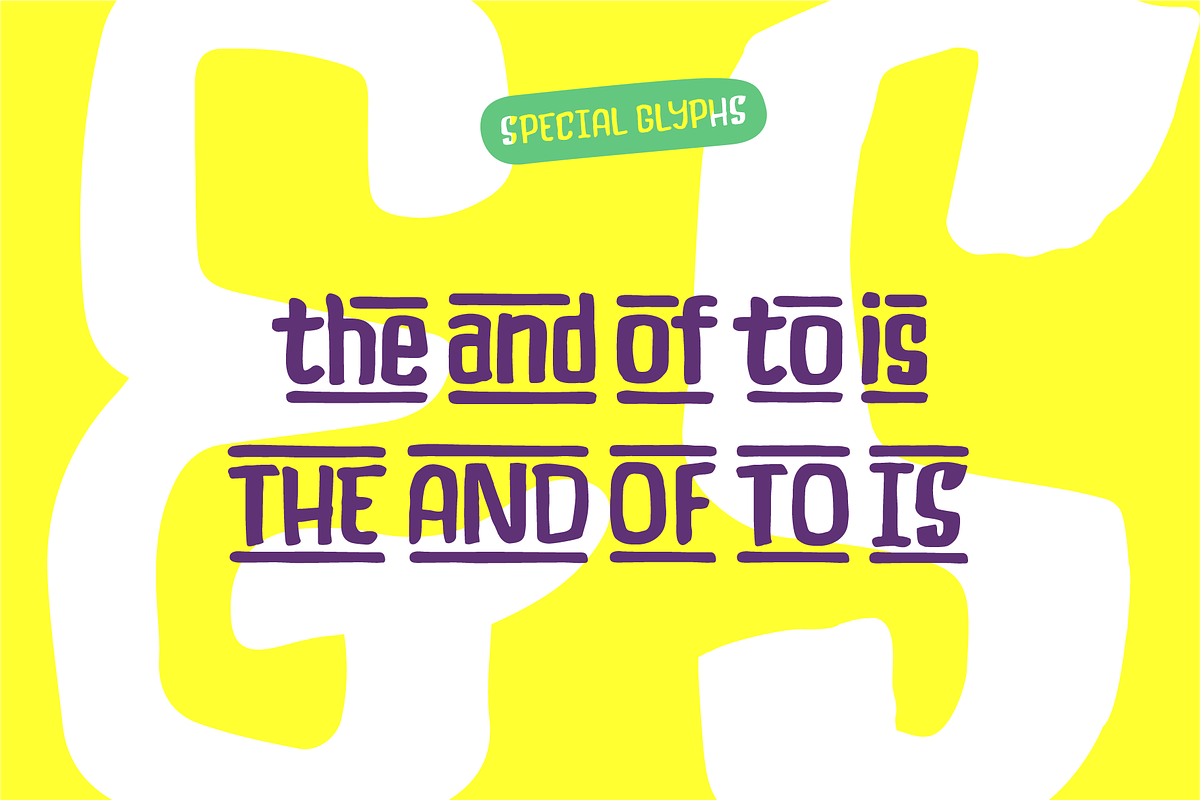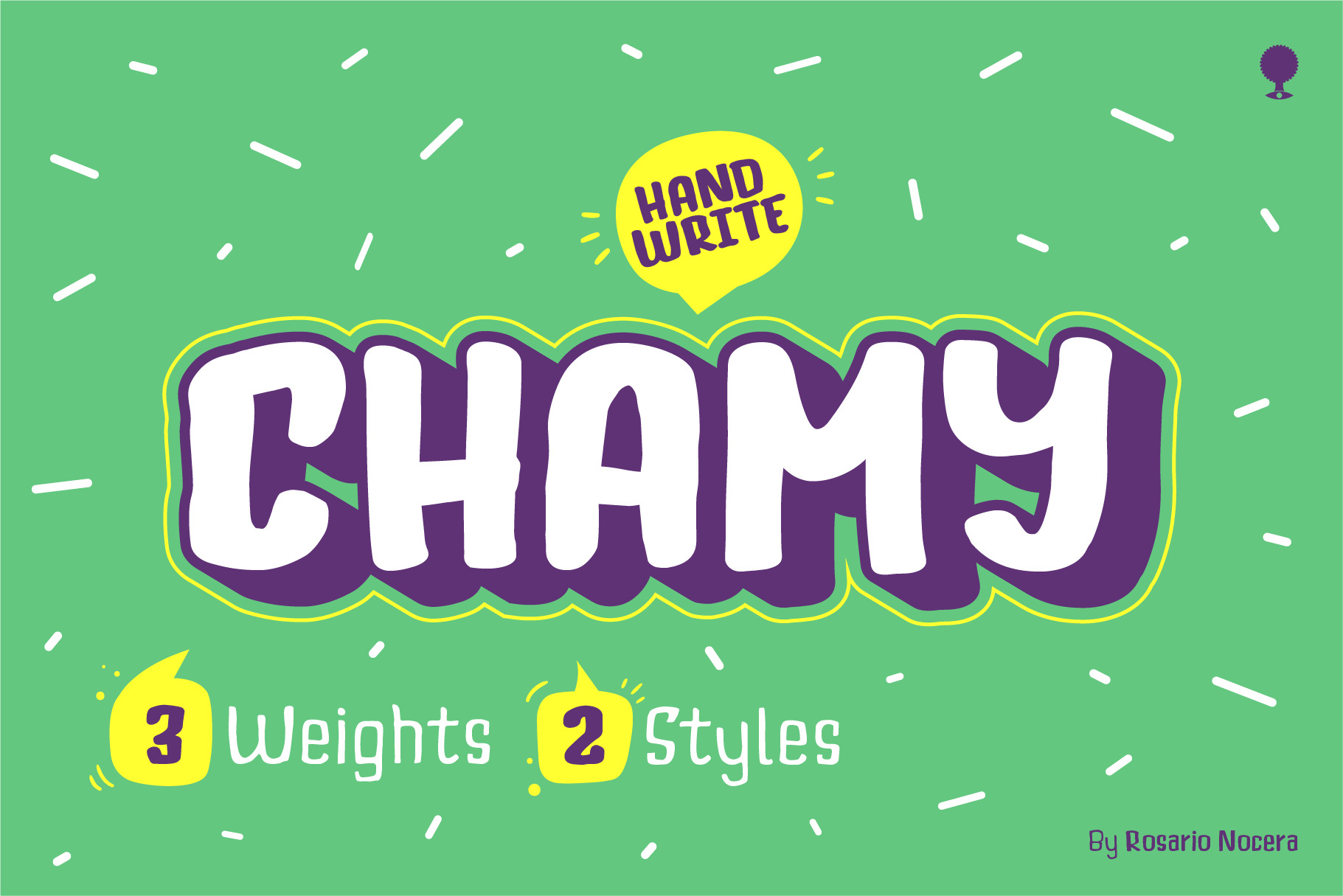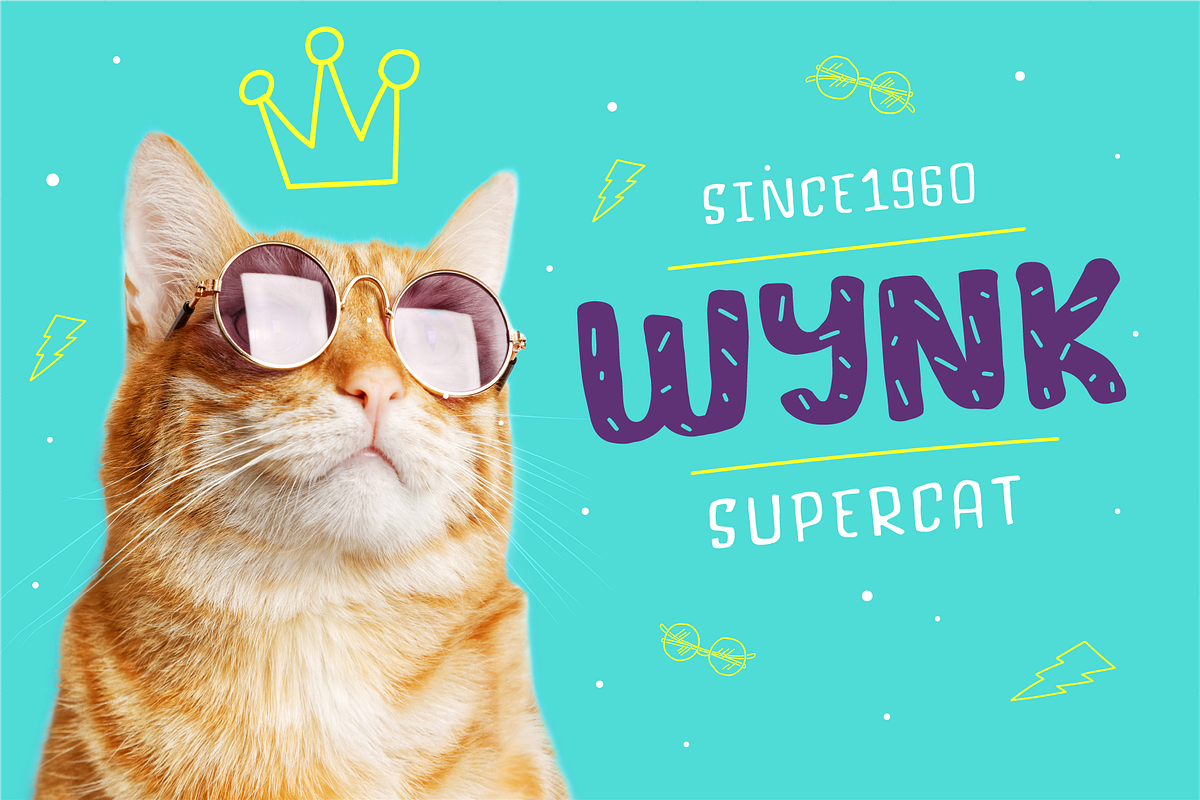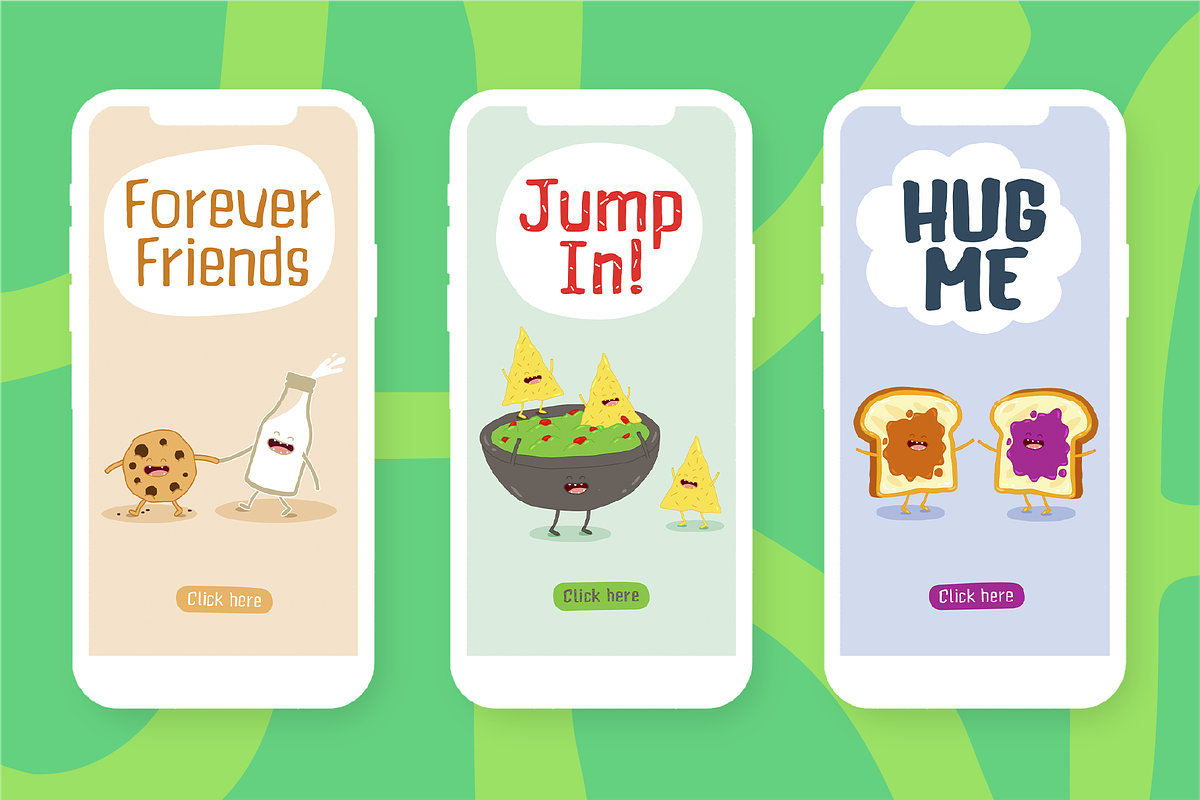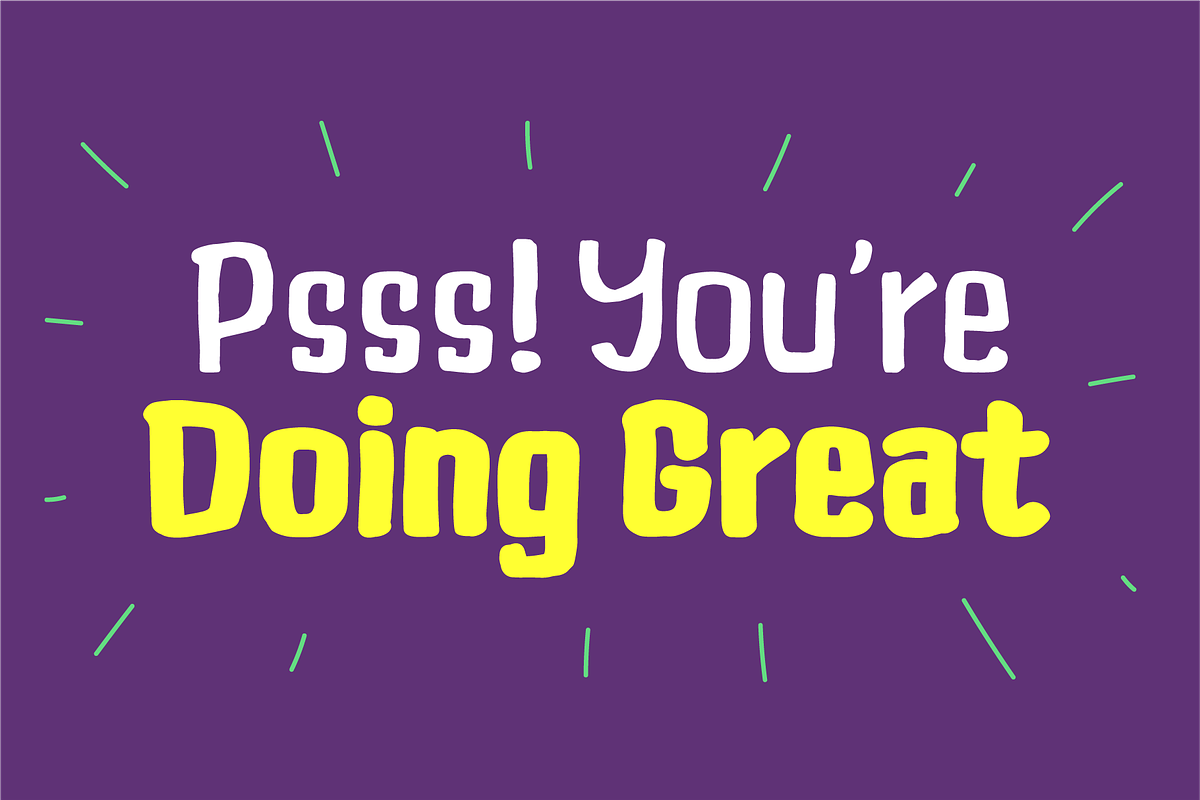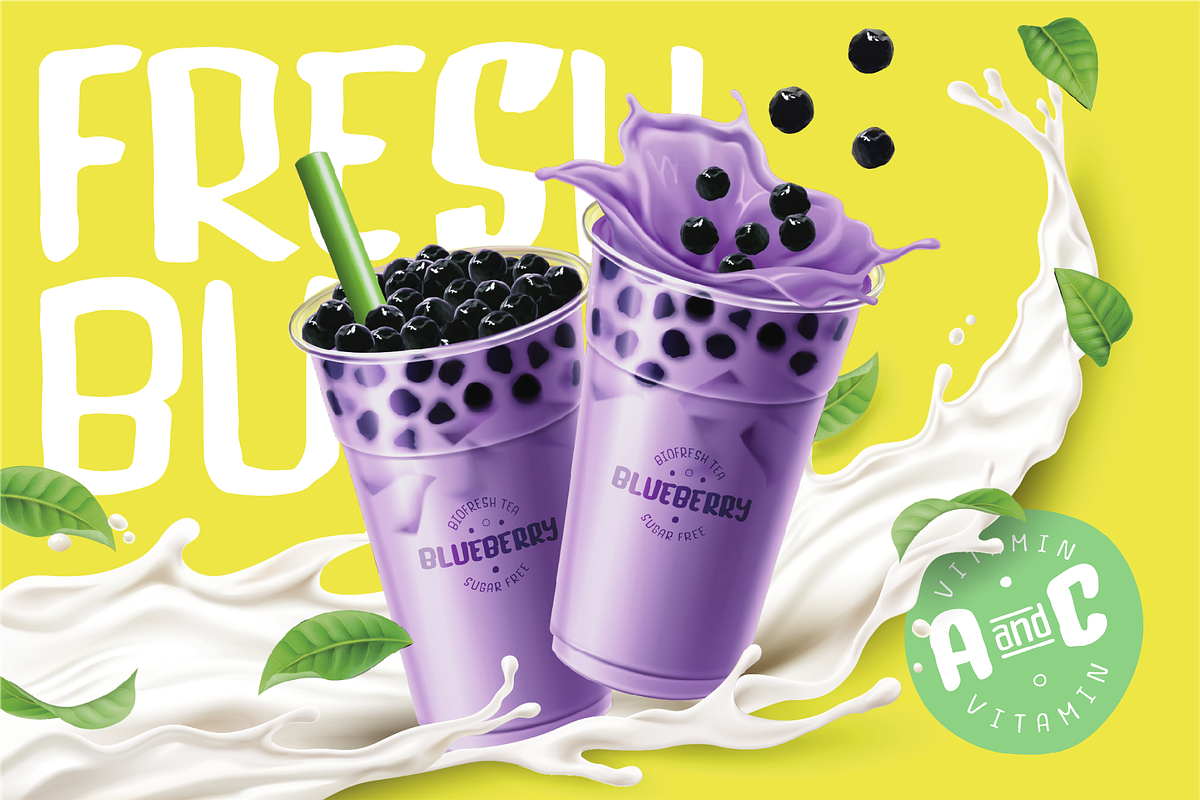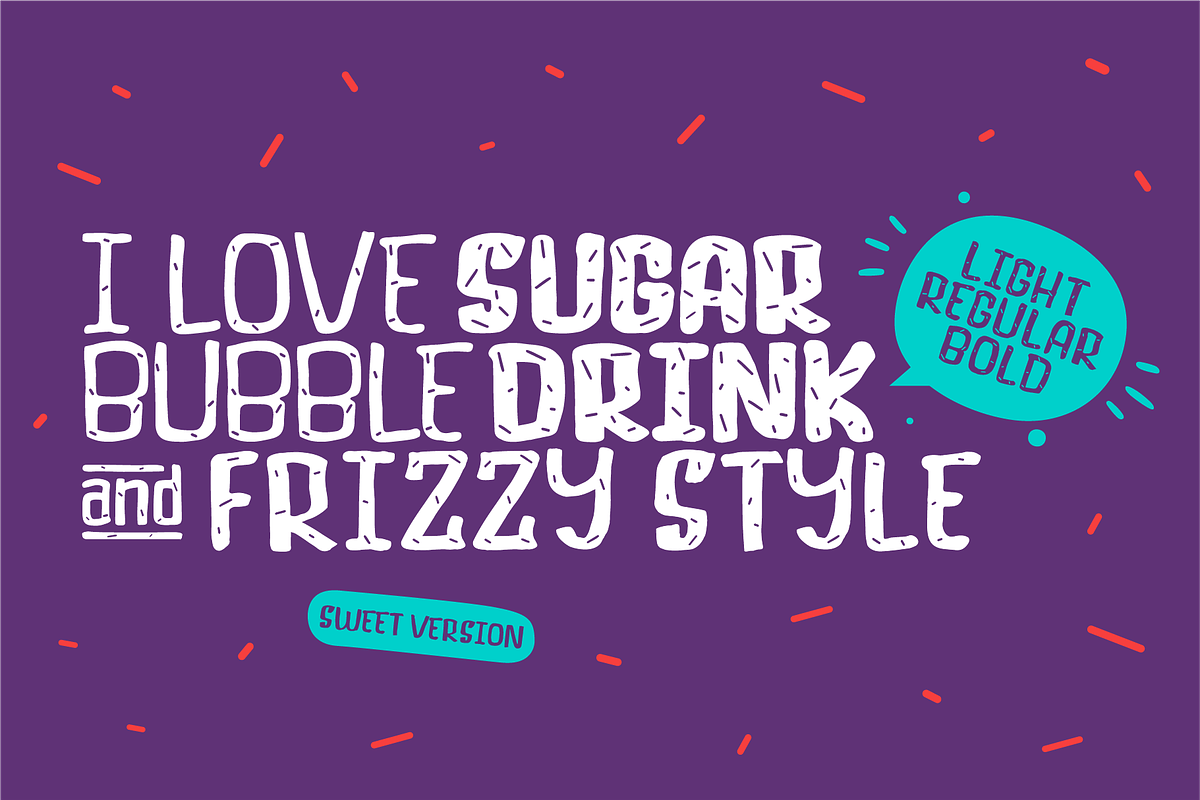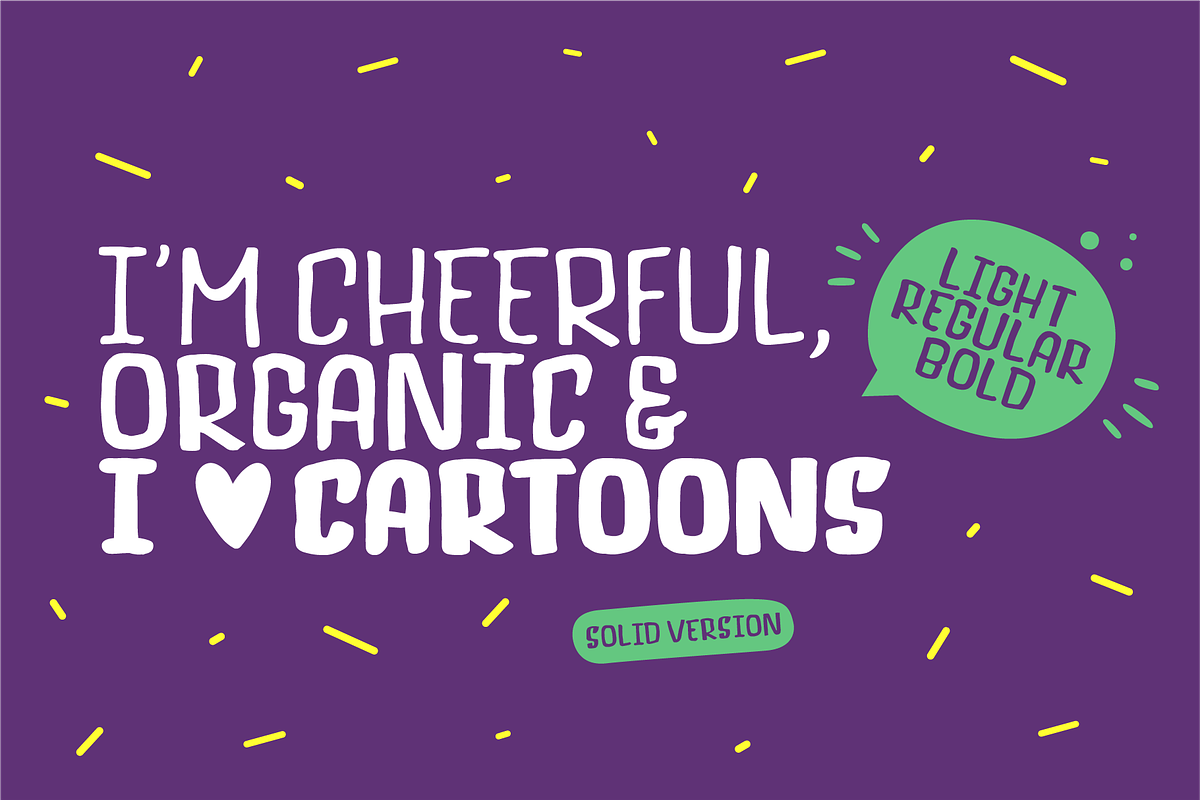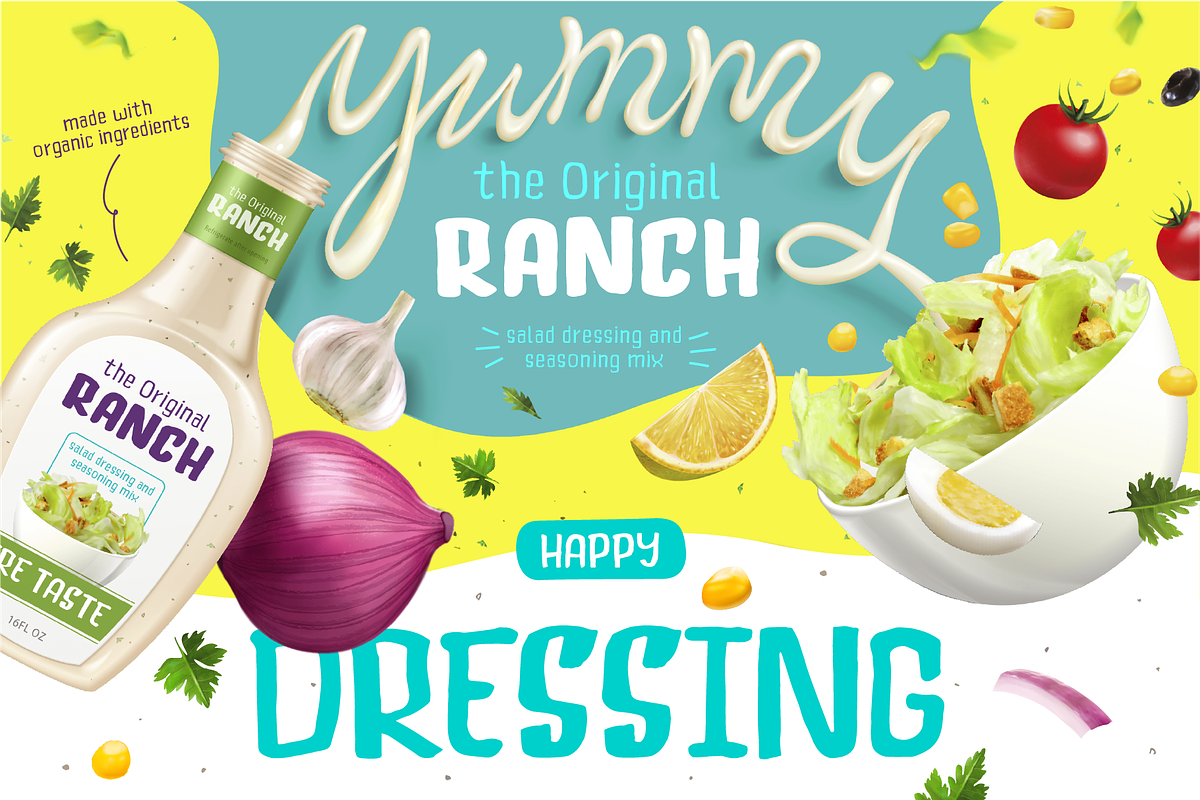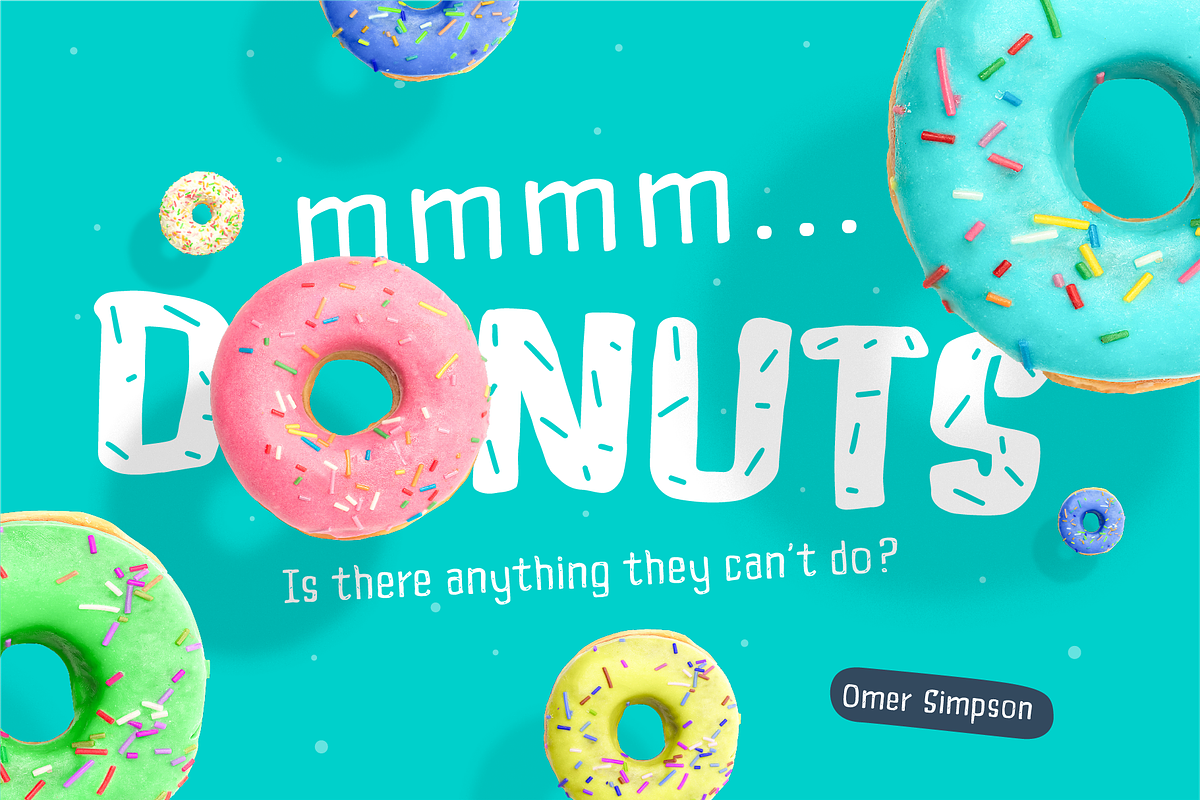
Chamy / Chamy handwrite font family
Chamy is a handwrite font family inspired by nature, sweets, comics and cartoons. It is available in three weighs from light to bold and two version: Solid and Sweet. Chamy is ideal for logo design, branding, titles, games, app and playful, cheerful and positive things.